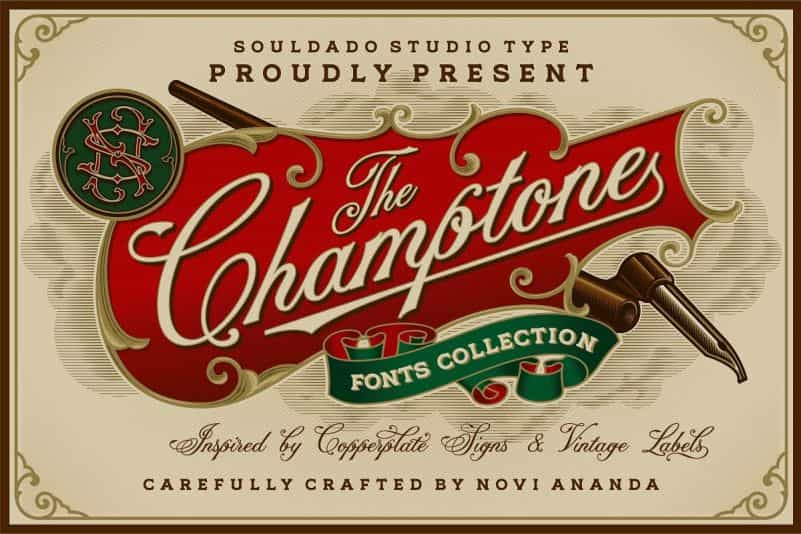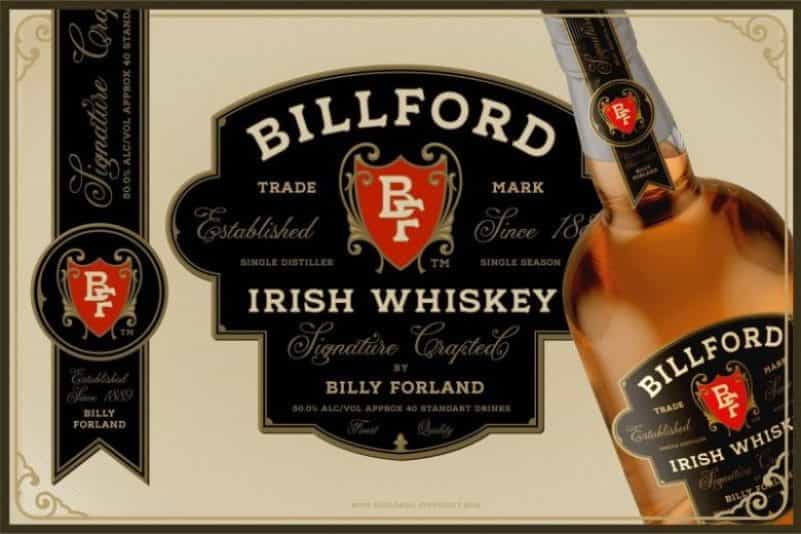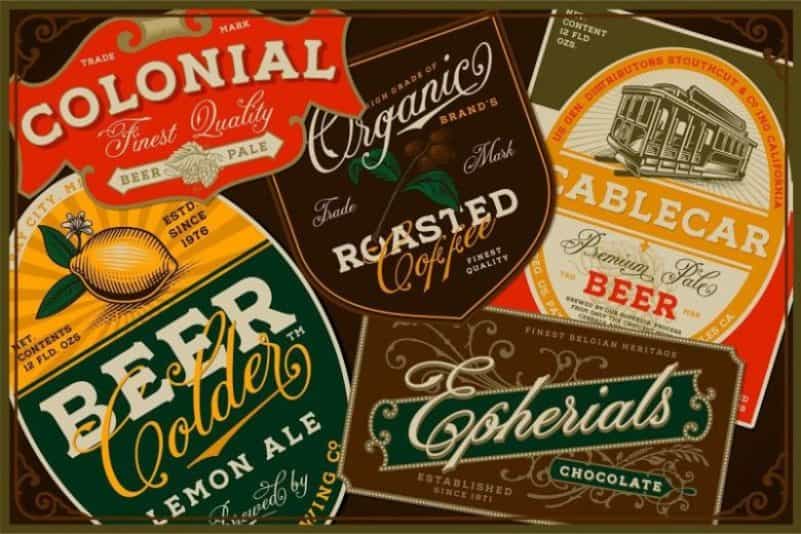
Discover Champtone Script Font, part of the Calligraphy Vintage collection—a versatile and unique font perfect for adding a personal touch to your projects. Download it for free and enjoy crafting designs with style, from invitations to social media posts. This font is available exclusively for personal use, giving you the freedom to create without limits. Unlock your creativity with Champtone Script Font today!
Champtone Font is made with the aesthetics of Copperplate Script, Sign and vintage style labels in mind. It has two font collections, extras swashes, ornament borders, panels and ligatures with stylistic alternates.